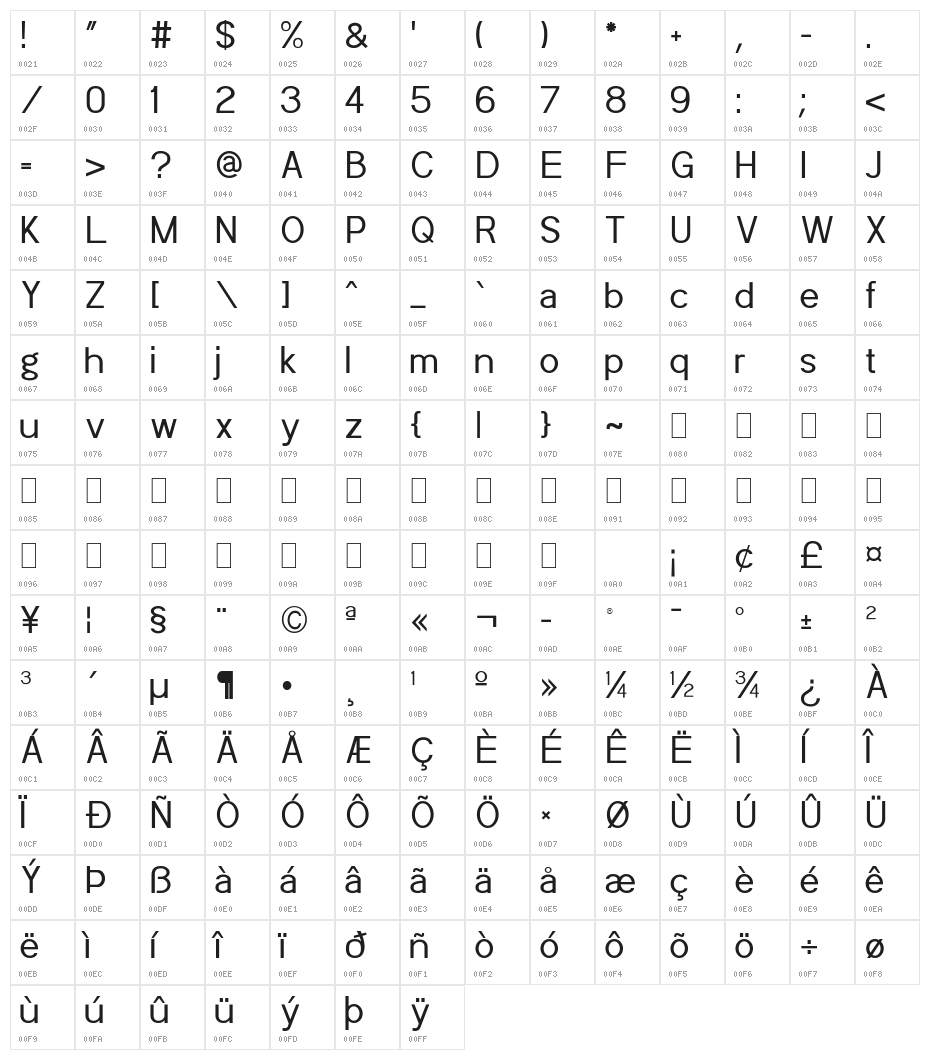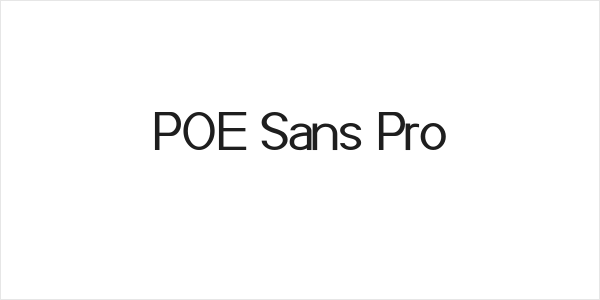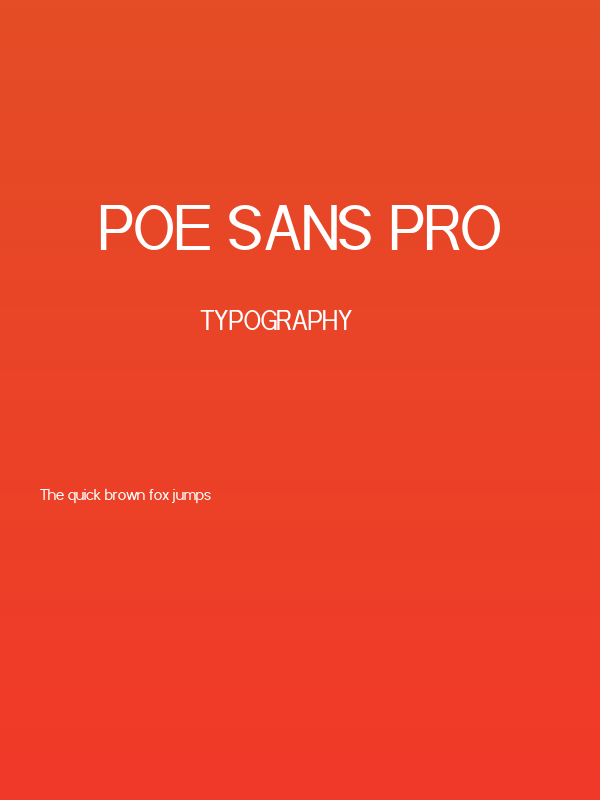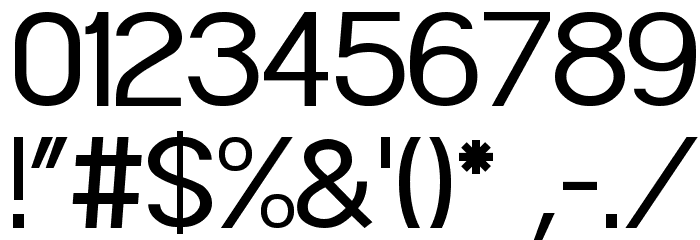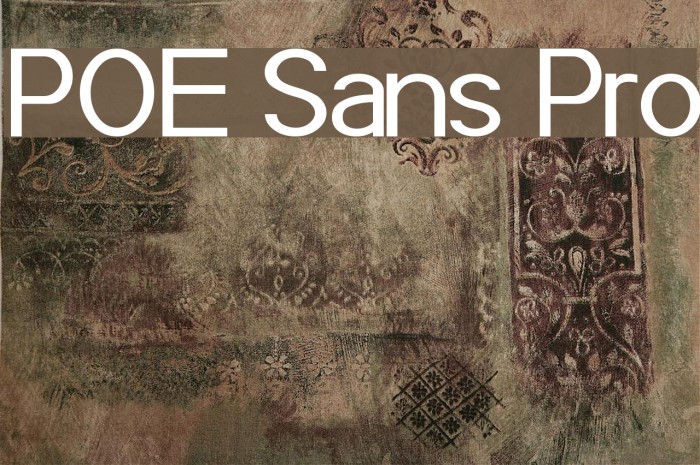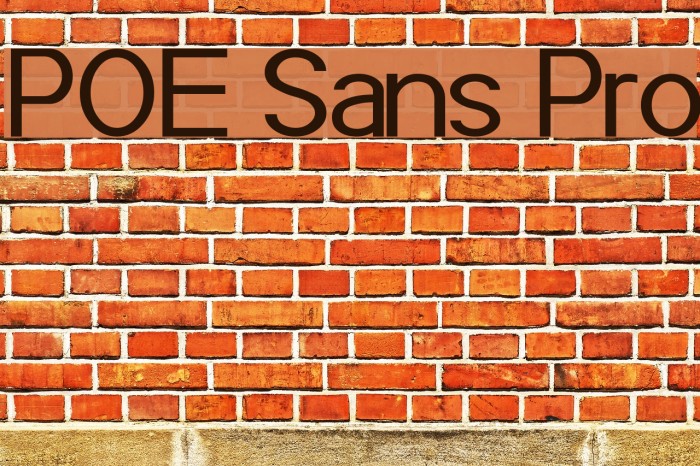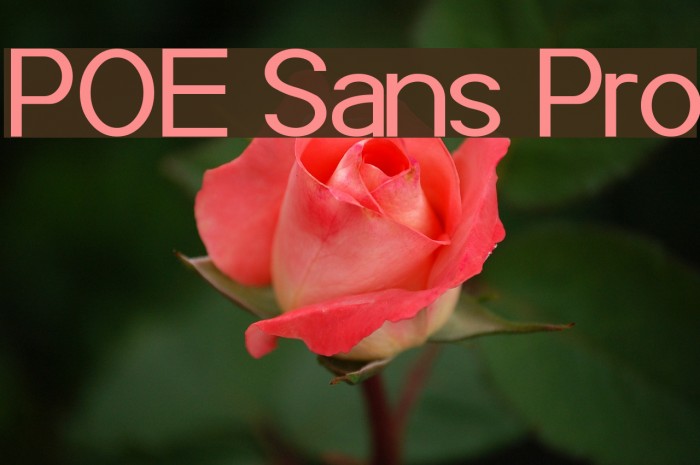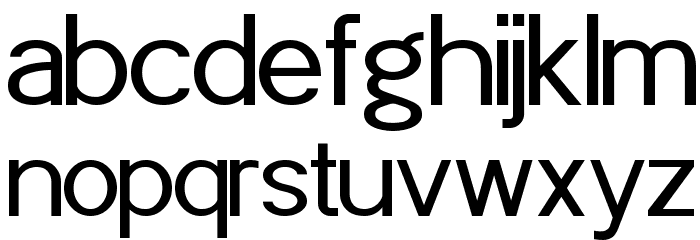
POE Sans Pro Font
POE Sans Pro Description
This typeface features a clean and modern sans-serif design, characterized by its geometric shapes and uniform stroke widths. The uppercase letters are bold and impactful, while the lowercase letters maintain a consistent and harmonious appearance. The numerals are clear and easily distinguishable, making them suitable for various applications. The special characters are well-integrated, maintaining the overall aesthetic of the typeface. The design is versatile, offering a contemporary look that is both professional and approachable.